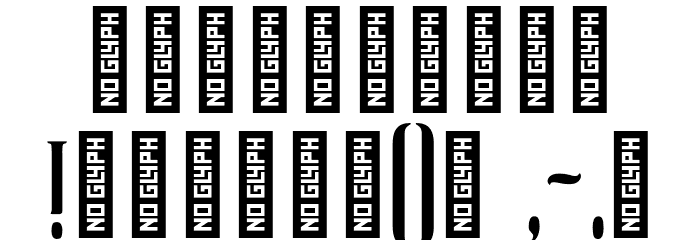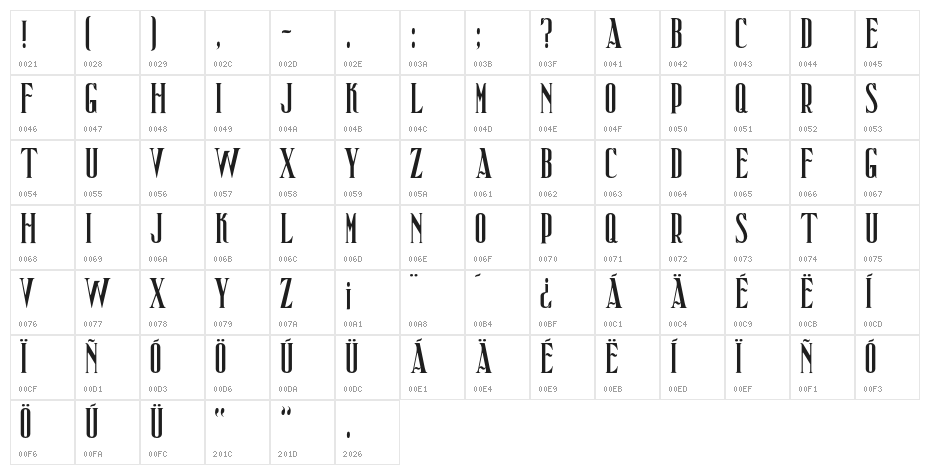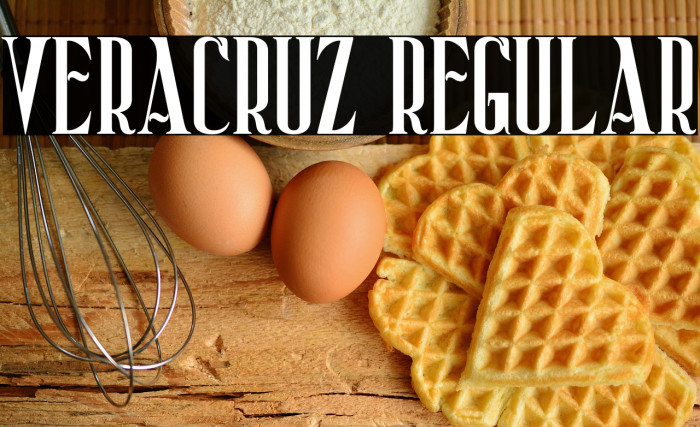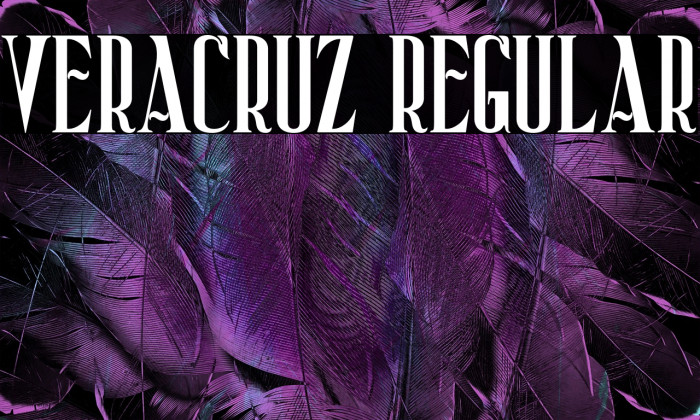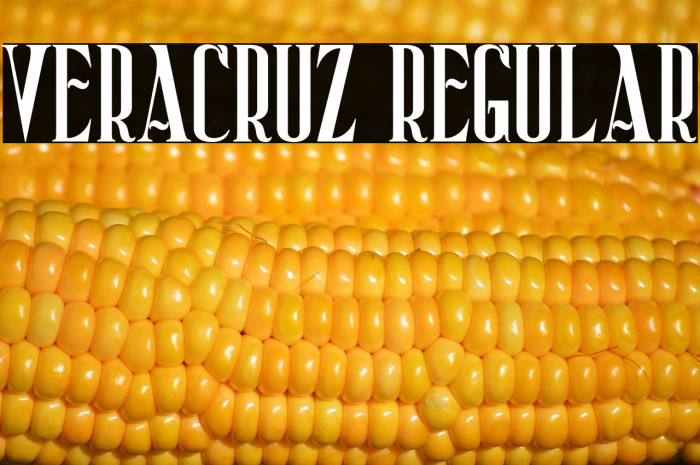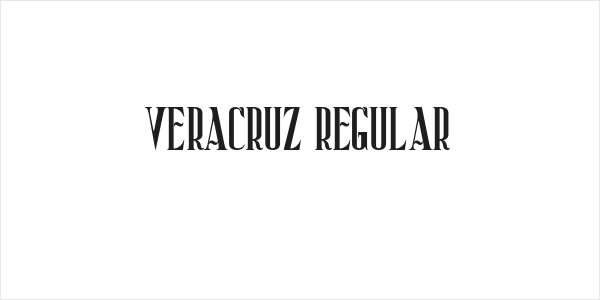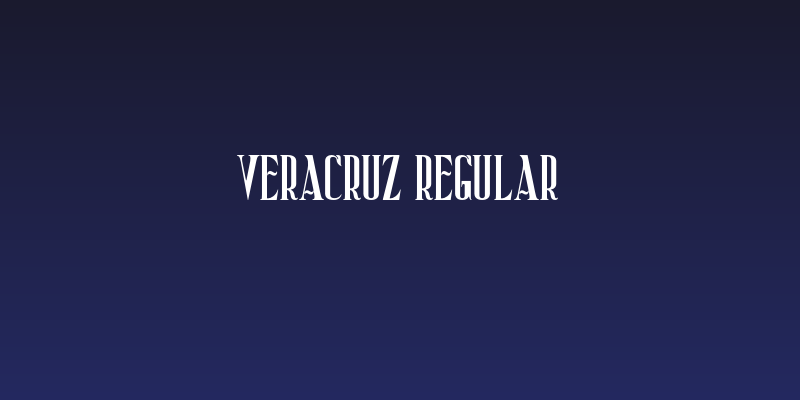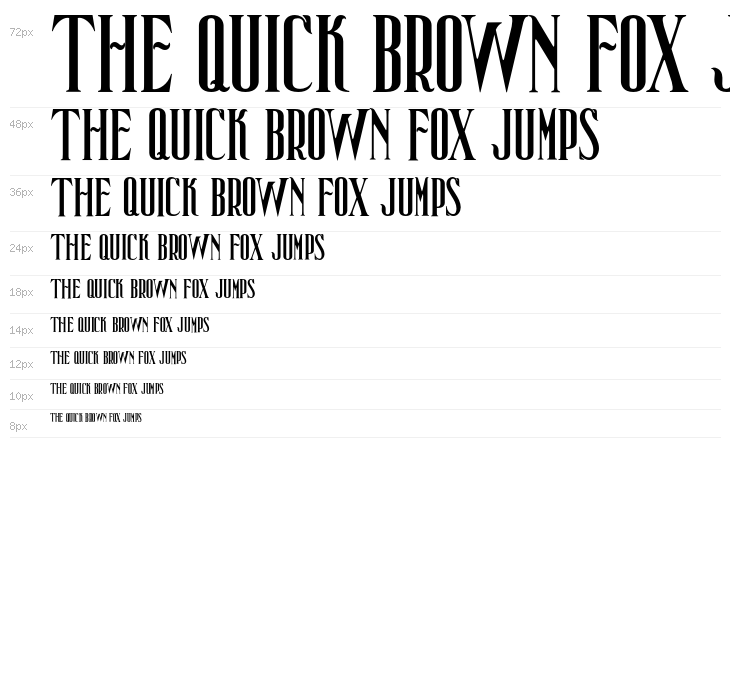
Veracruz Regular Font
Veracruz Regular Description
This font features a bold and striking design with tall, narrow characters that have a distinct vertical emphasis. The serifs are sharp and pronounced, adding a touch of elegance and sophistication. The uppercase letters are particularly elongated, giving the font a dramatic and commanding presence. The overall style is reminiscent of vintage or retro typography, making it suitable for projects that require a classic yet bold aesthetic. The font's unique character shapes and high contrast between thick and thin strokes make it stand out, ideal for eye-catching headlines or titles.
| Proposed Projects | Ideal for vintage posters, retro branding, dramatic headlines, and classic-themed designs. |